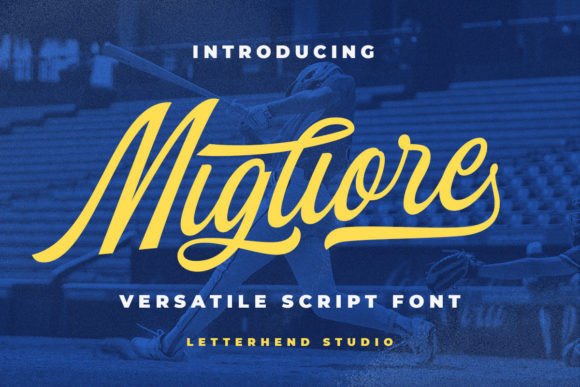
Step into a world of elegance and charm with Migliore, the enchanting script font that will transform your designs into works of art.
A masterpiece crafted by the skilled hands of letterhend, Migliore is a spectacular creation, meticulously designed to capture the essence of romance and sophistication. This font is not merely a collection of characters; it's an invitation to embark on a journey of creativity and beauty.
Migliore's graceful curves and delicate swashes evoke a sense of timeless elegance, reminiscent of handwritten love letters and vintage wedding vows. Its carefully balanced proportions and harmonious letterforms create a visual symphony, pleasing to the eye and captivating to the soul.
Whether you're a seasoned designer or a creative enthusiast, Migliore will be your trusted companion in crafting designs that resonate with your audience. Effortlessly elevate your branding, stationery, invitations, and social media posts with this font that speaks volumes even in silence.
But Migliore's charm extends beyond aesthetics. It's a versatile font that adapts seamlessly to a wide range of projects and themes. From wedding invitations that exude romance to branding designs that convey a touch of luxury, Migliore is the ultimate choice for designers seeking to create a lasting impression.